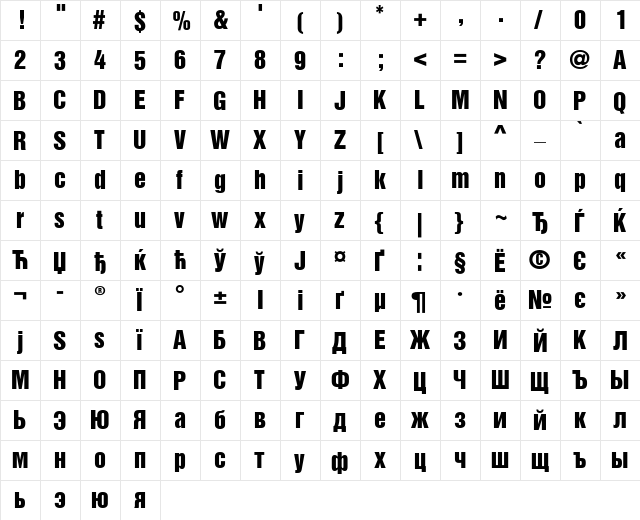
HelveticaInseratCyr Upright Regular Font Preview
HelveticaInseratCyr Upright Regular
Design Context for HelveticaInseratCyr Upright Typeface
HelveticaInseratCyr Upright is a composed and adaptable typeface that performs quietly and consistently across a wide range of design contexts.